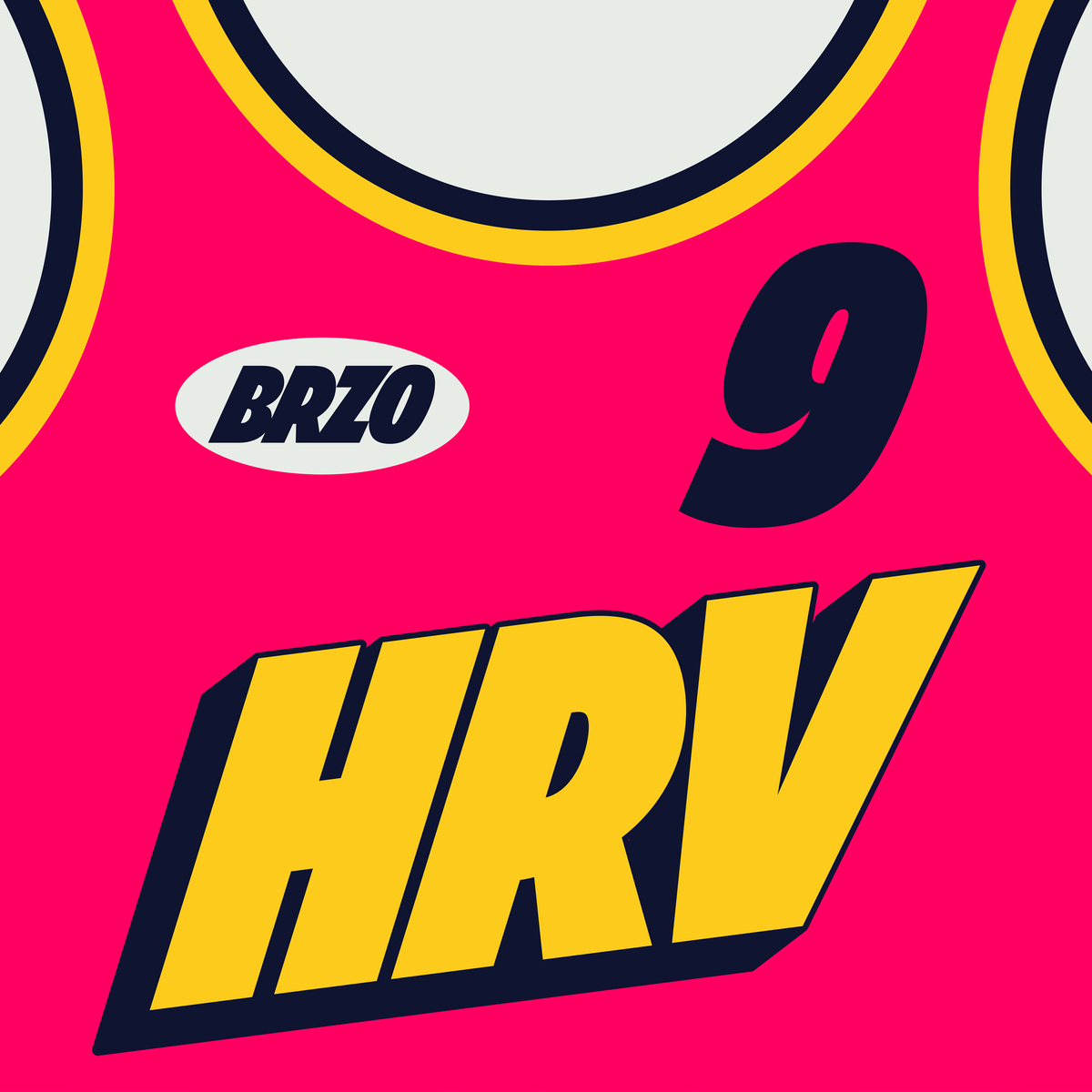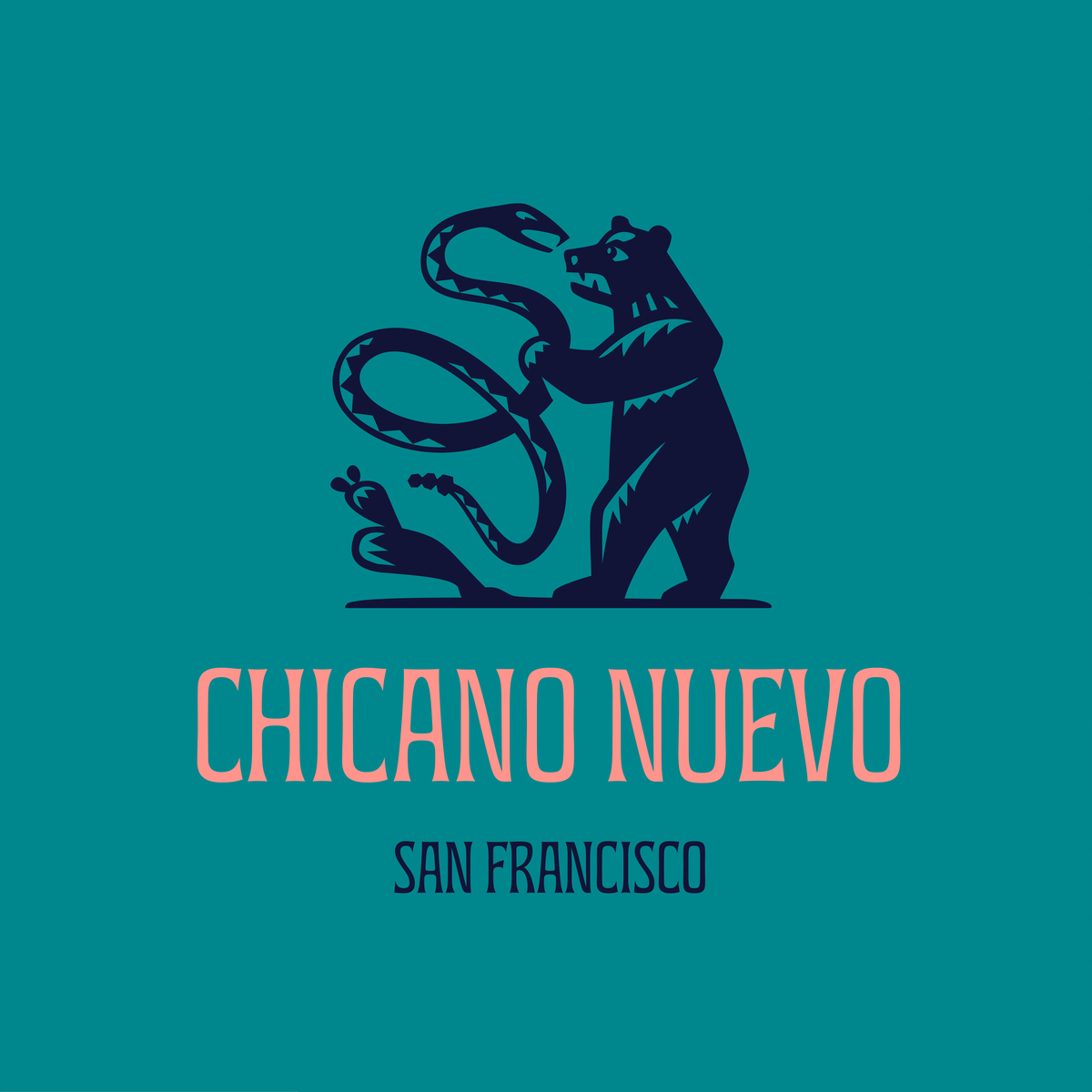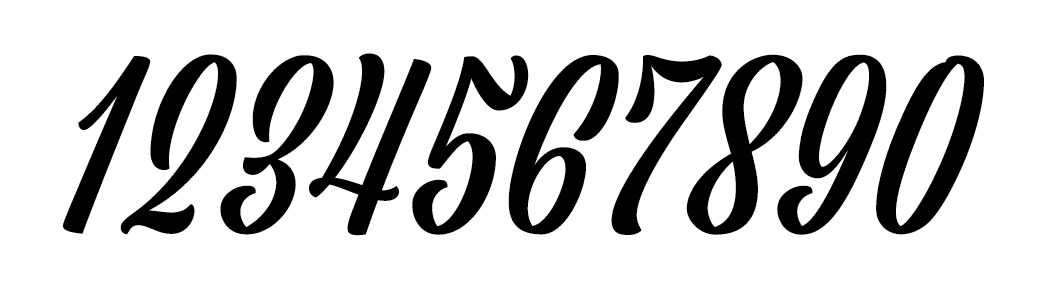
Nuform Type Foundry [Erik Marinovich]
Erik Marinovich (Croatia) ran/runs Friends of Type and Nuform Type, and is based in Berkeley / San Francisco. He is the creator of some neat type posters in 2009. In 2010, he made more typographic posters. Police&Thieves (2011) is an illustrated caps alphabet (font?). FAC13 (2011) is an experimental alphabet.
In 2015, he designed the retro Viktor Script with James Edmondson at Oh No Type.
At Future Fonts, he published Brzo (2020: a display typeface inspired by the boldness of 90s basketball graphics), the reverse stress typeface Jaws (2018) and the vintage typeface Hermanos (2018-2021). He writes: Hermanos is a dedication to the hand painted signs found in the mission district of San Francisco. Its flared serifs, narrow stature and cheerful spirit make Hermanos a perfect compliment for packaging, restaurants and editorial headlines.
Designer of Ozik (2022), a bizarre four-weight display typeface that pays homage to the iconic lettering featured on Black Sabbath's Vol.4 album.